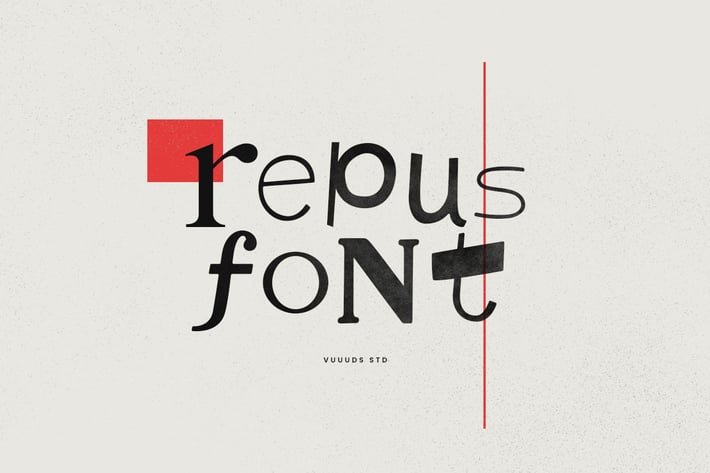
Repus Font
Introducing Repus Font!
Repus is experimental display duo, every single letters have been carefully crafted with random font style.
Foreign languages support: ÀÁÂÃÄÅÆÇÈÉÊËÌÍÎÏÐÑÒÓÔÕÖØÙÚÛÜÝàáâãäåæçèéêëìíîïðñòóôõöøùúûüýÿ